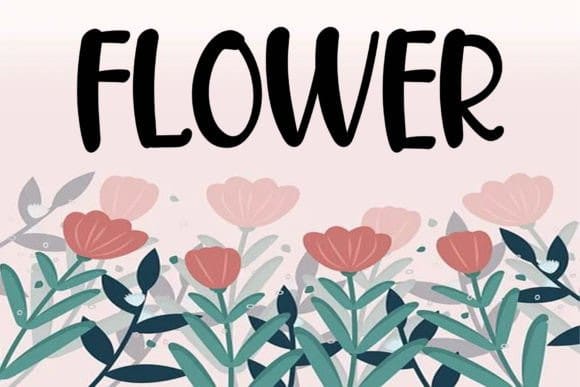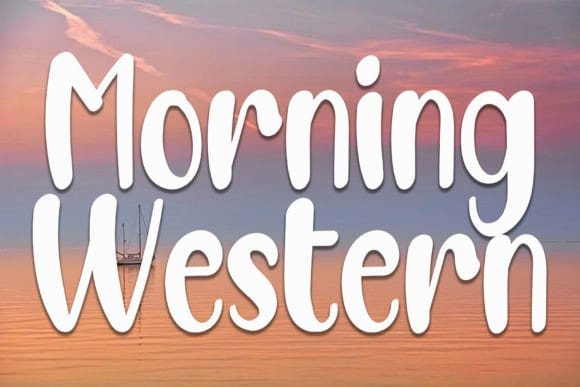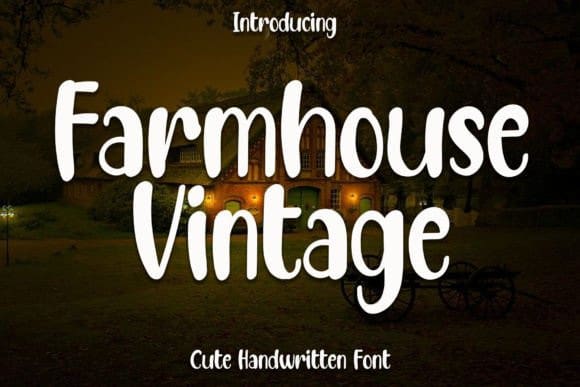
Farmhouse Vintage Font
Farmhouse Vintage Font is a neat and beautiful handwritten font described by an elegant touch, perfect for your favorite projects. Fall in love with its incredibly distinct and timeless style, and use it to create spectacular designs!